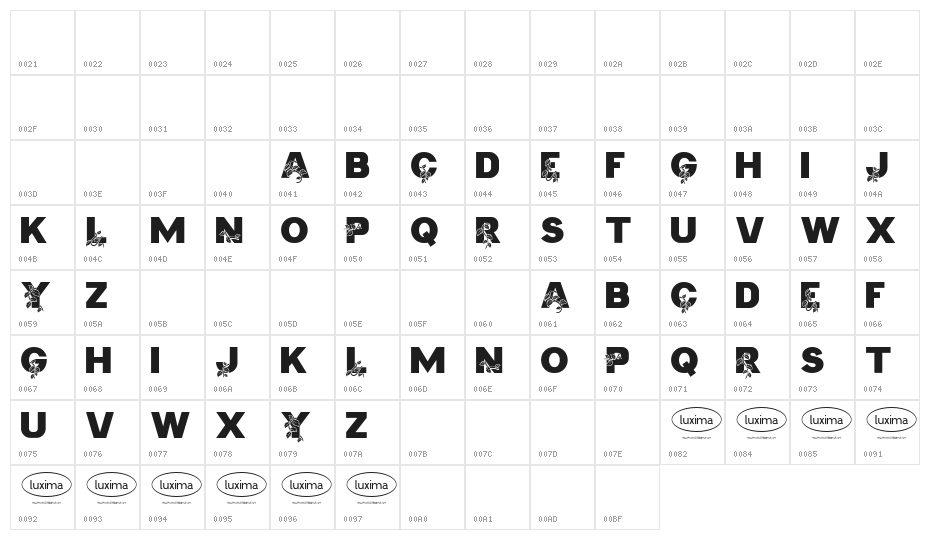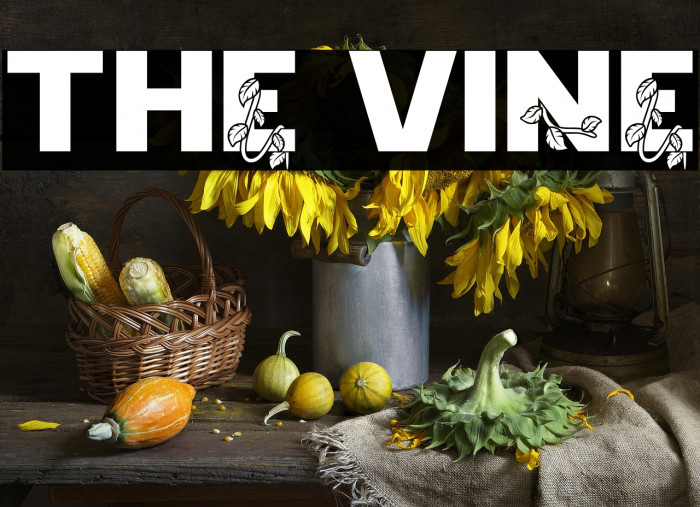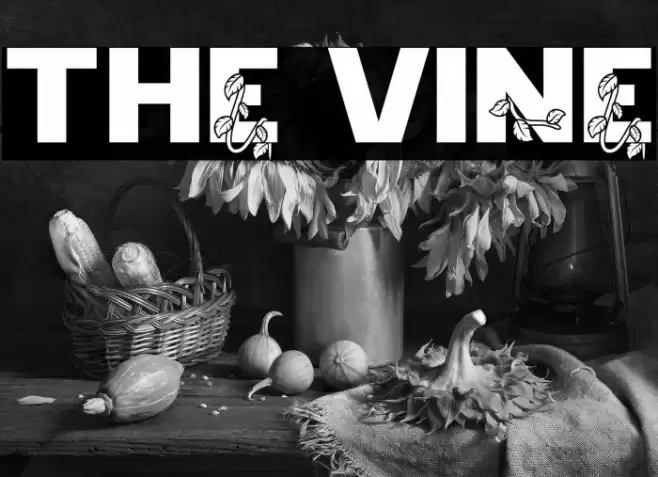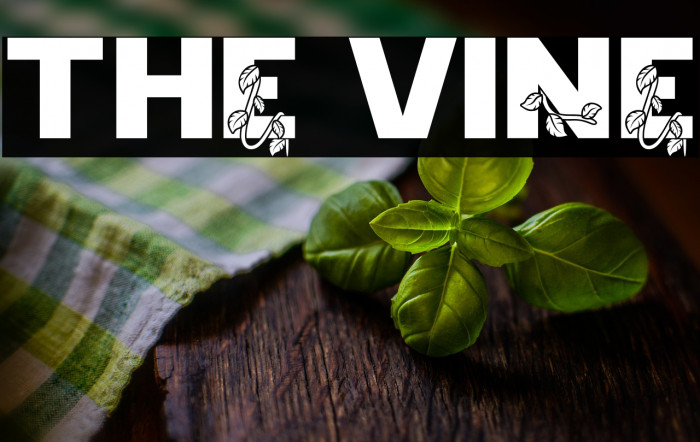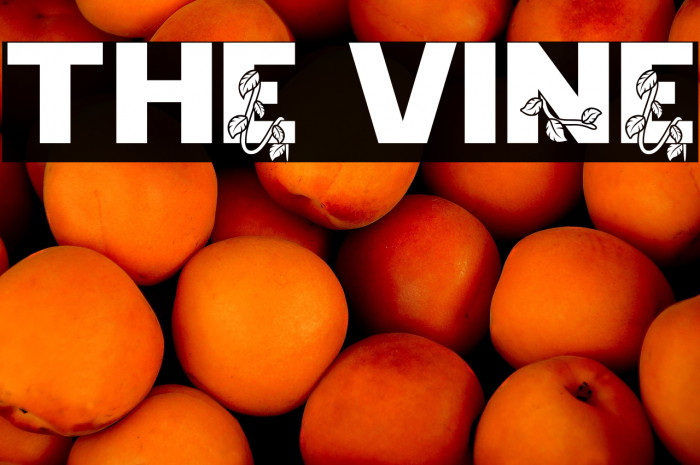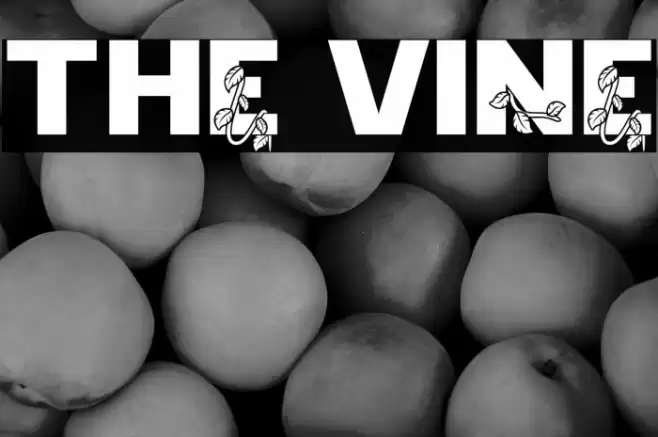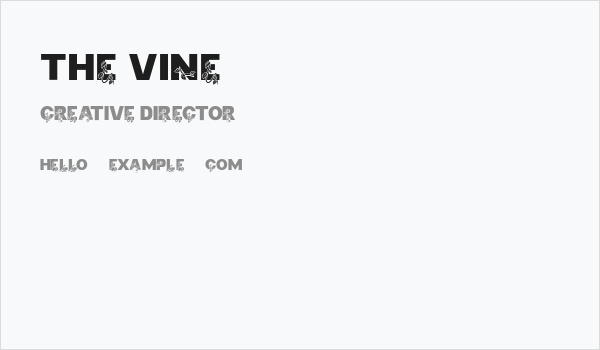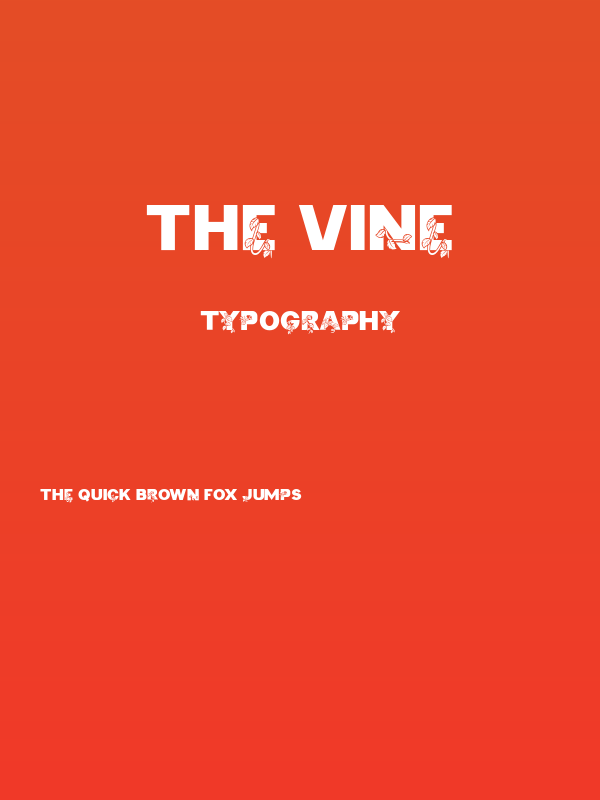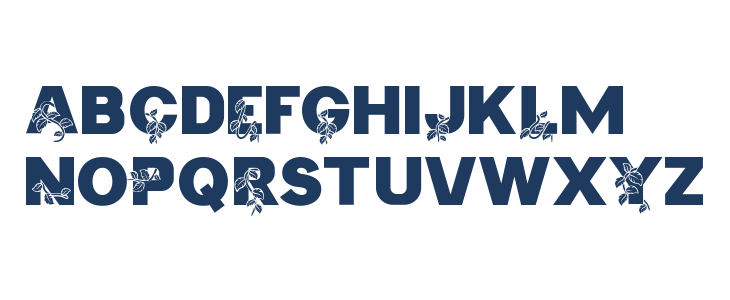
The Vine Font
The Vine Description
This decorative font features bold, uppercase letters with intricate vine patterns entwined around each character. The design is striking and artistic, making it ideal for projects that require a touch of nature or elegance. The vines add a unique flair, creating a sense of movement and growth. The font maintains a consistent weight and width, ensuring readability despite its decorative elements. The overall style is both modern and organic, suitable for creative and eye-catching designs.
| Overall Style | Modern, Organic |
| Use Case | Headlines, Logos, Decorative text |
| Proposed Projects | Ideal for wedding invitations, nature-themed branding, eco-friendly product packaging, and artistic posters. |